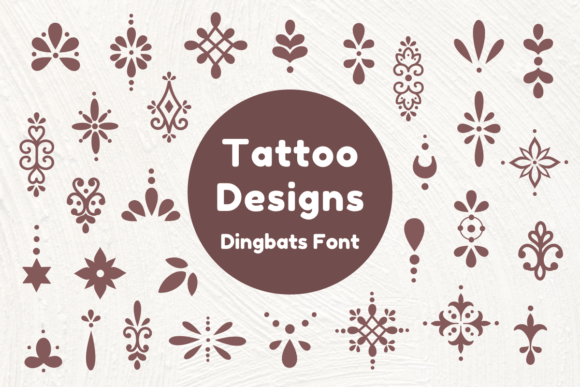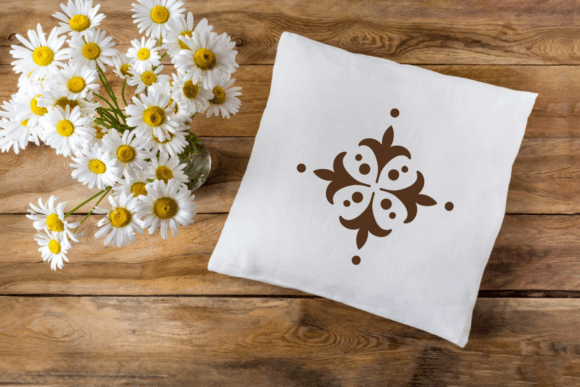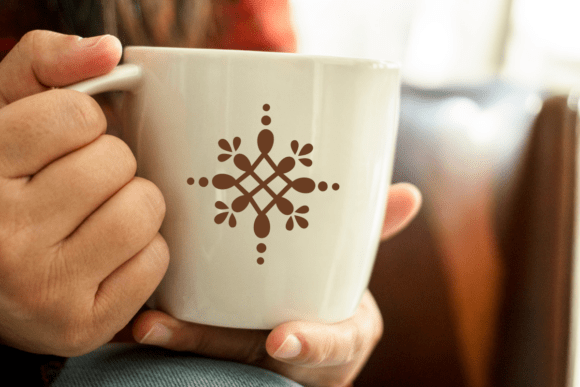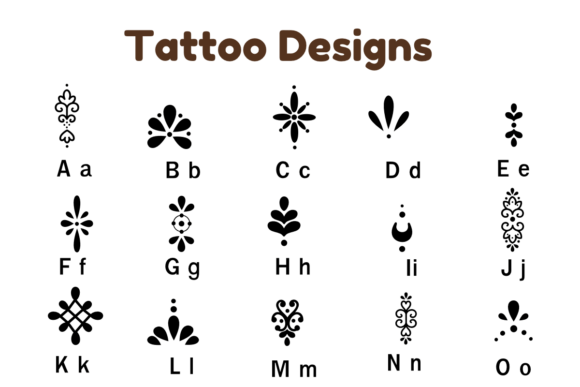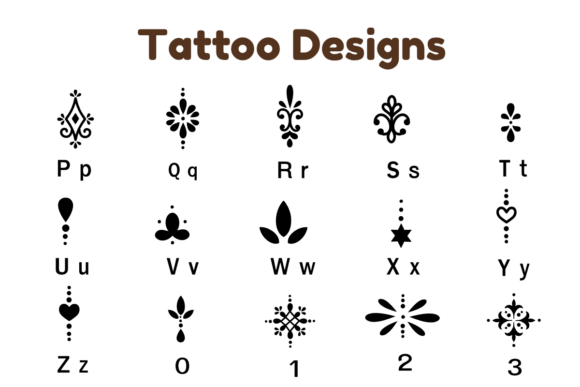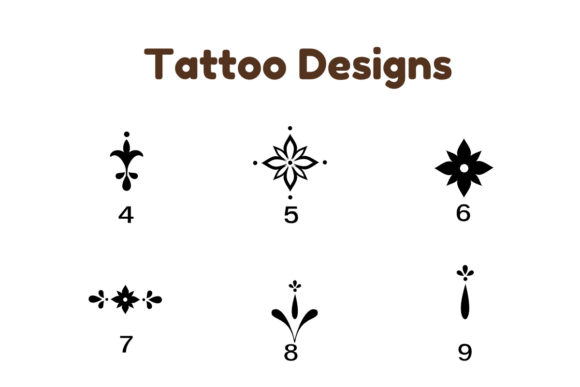
Tattoo Designs Font
Tattoo Designs is a dingbats font with a sketched style. This font can enhance your creative projects such as wedding invitations, DIY, crafts, decorations, logos, and many other creative ideas.